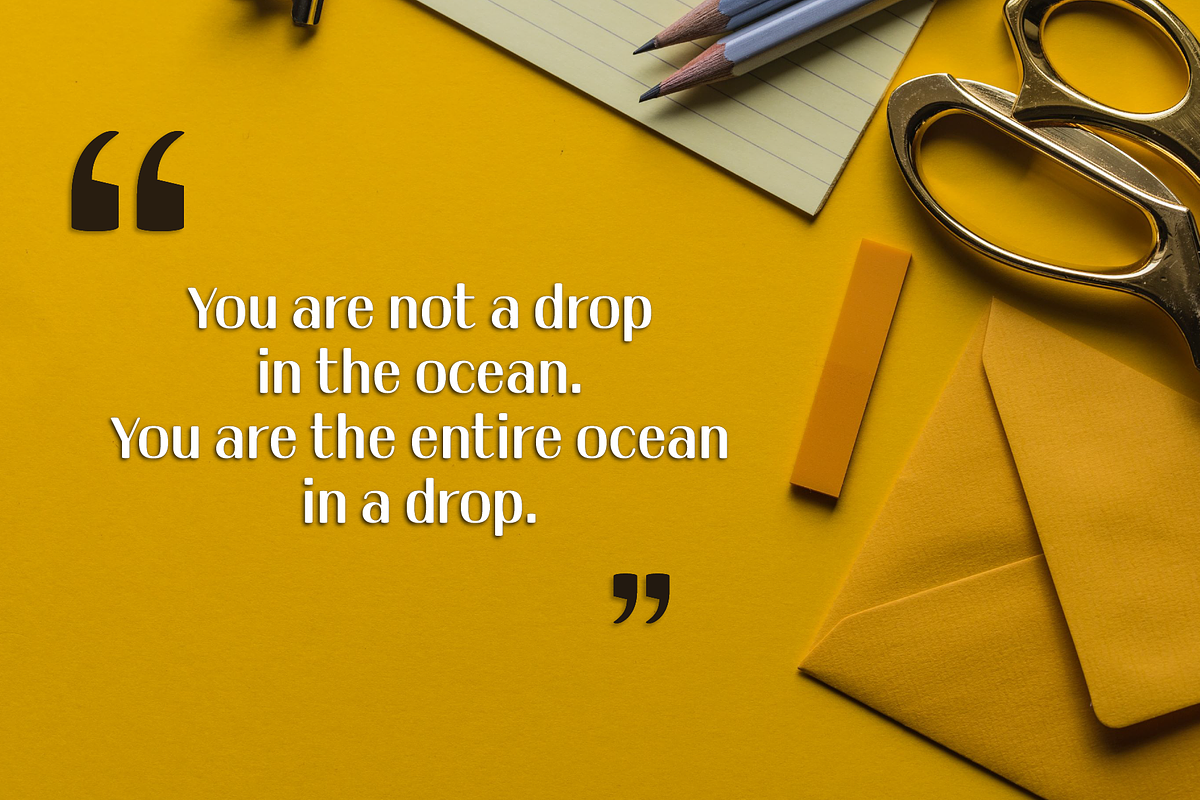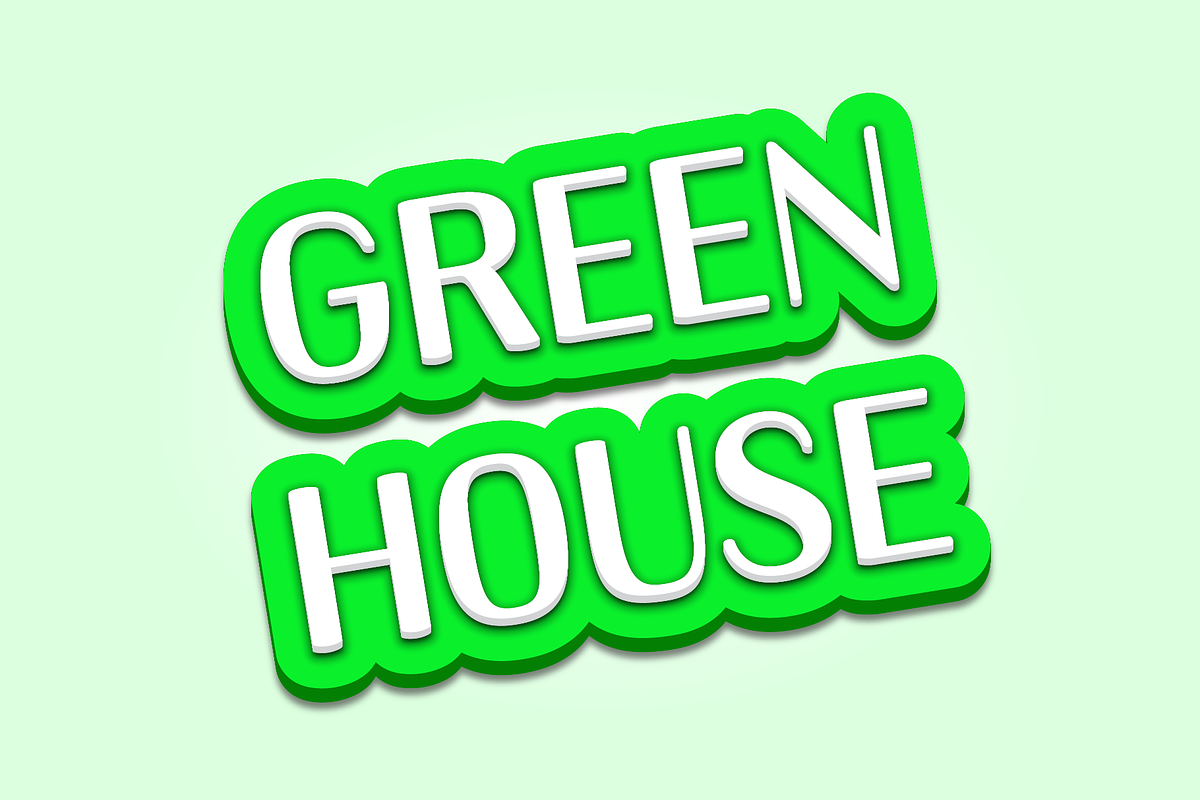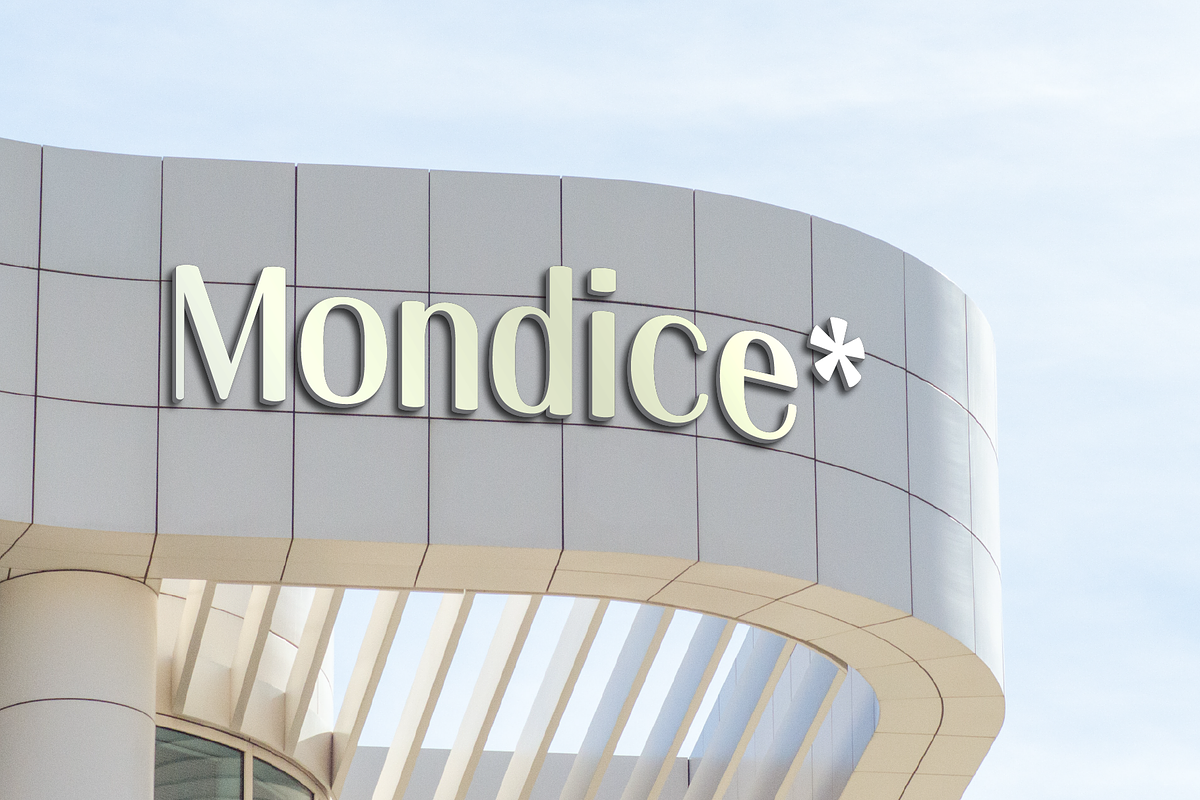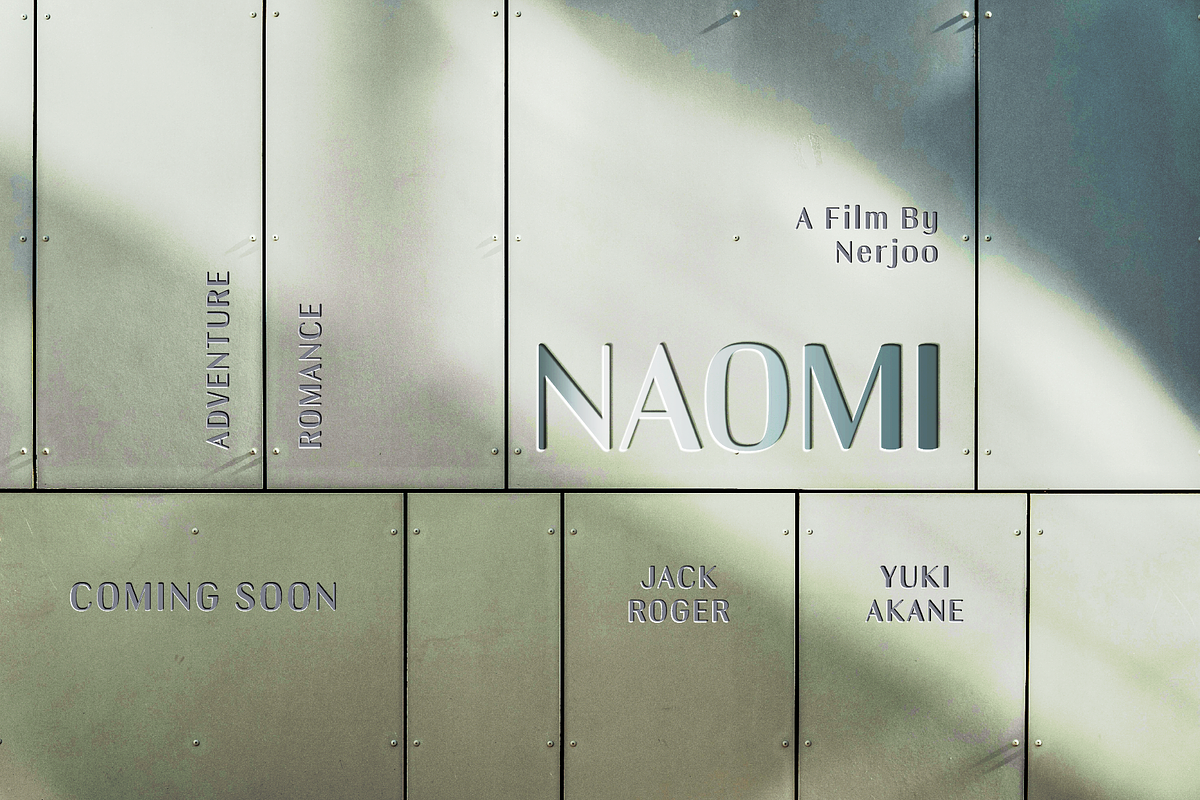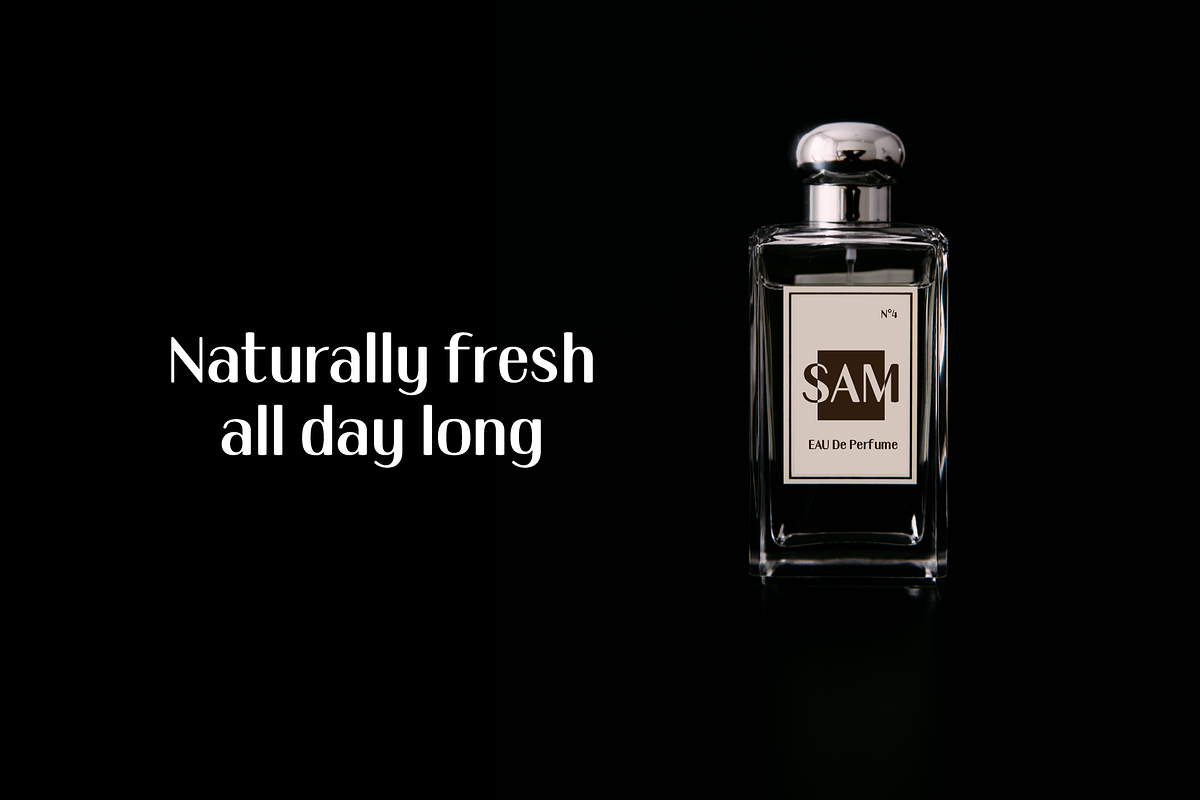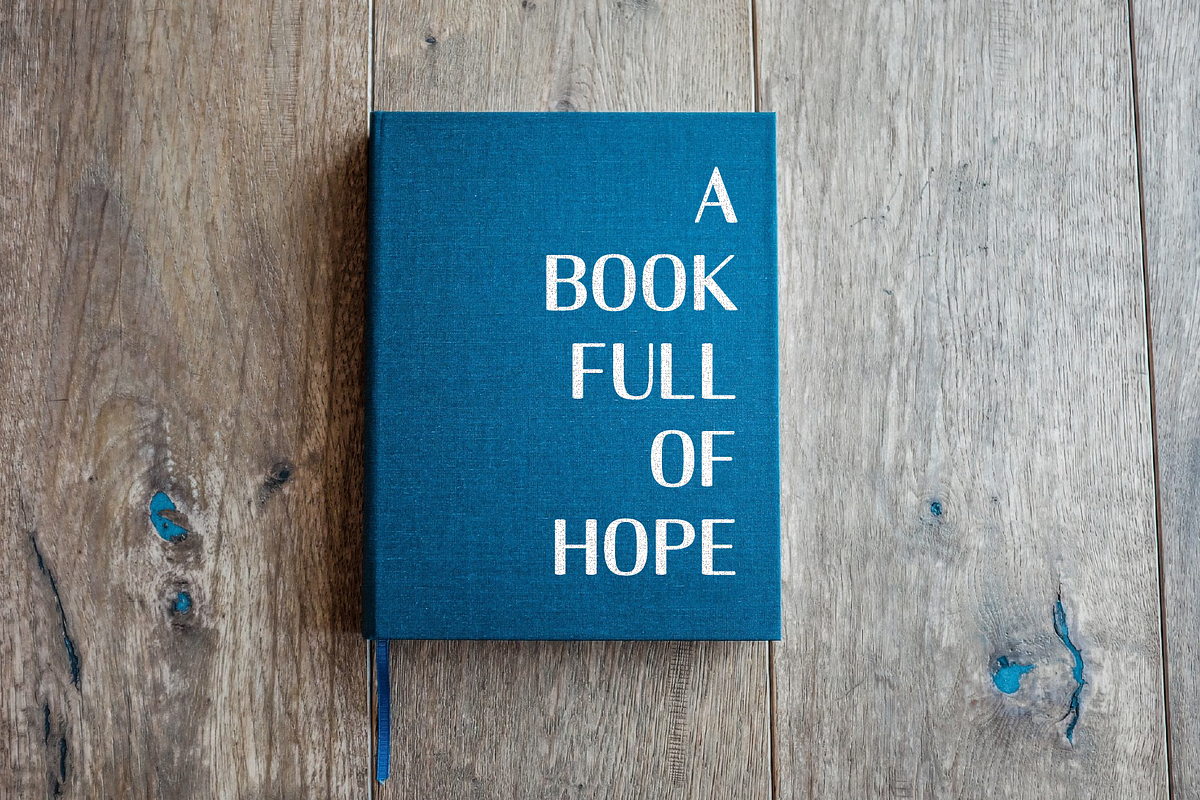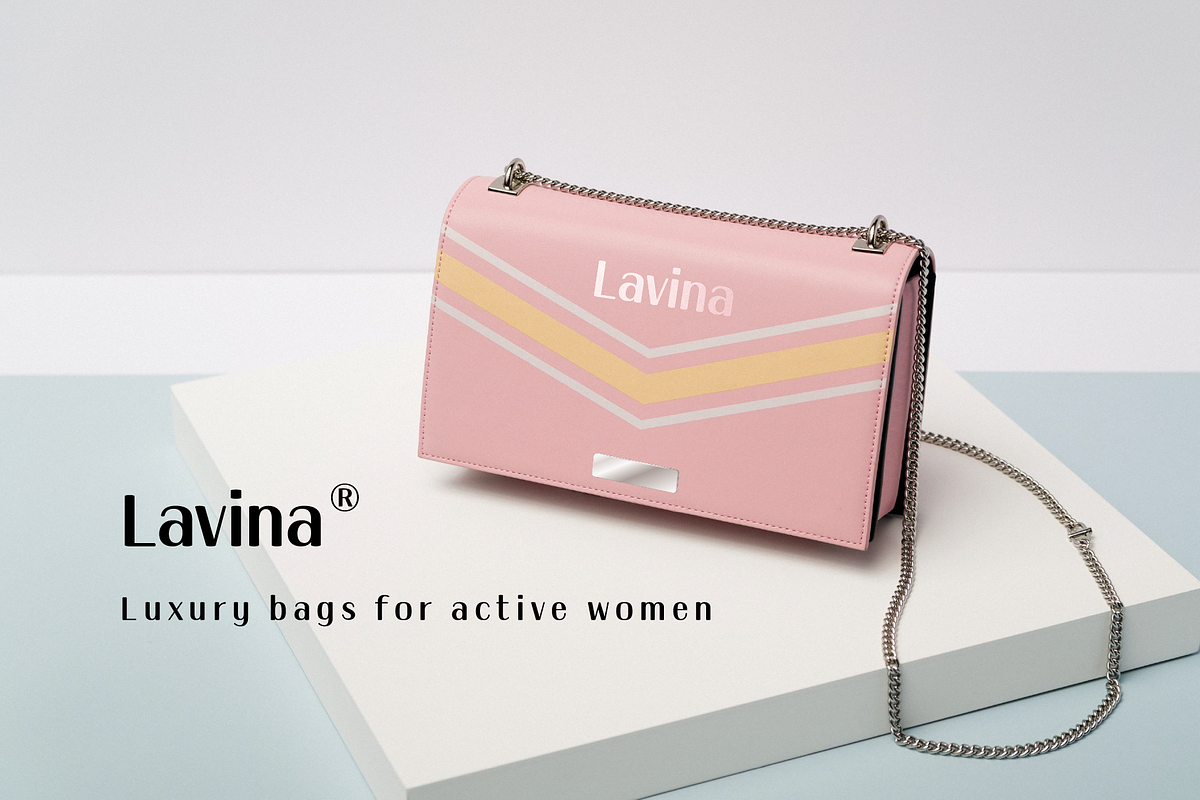
Simple Nib - Elegant Modern Sans
Simple Nib is a simple, modern and elegant serif font. The corners of each letter are rounded, making them dynamic and eye-catching for any design project.